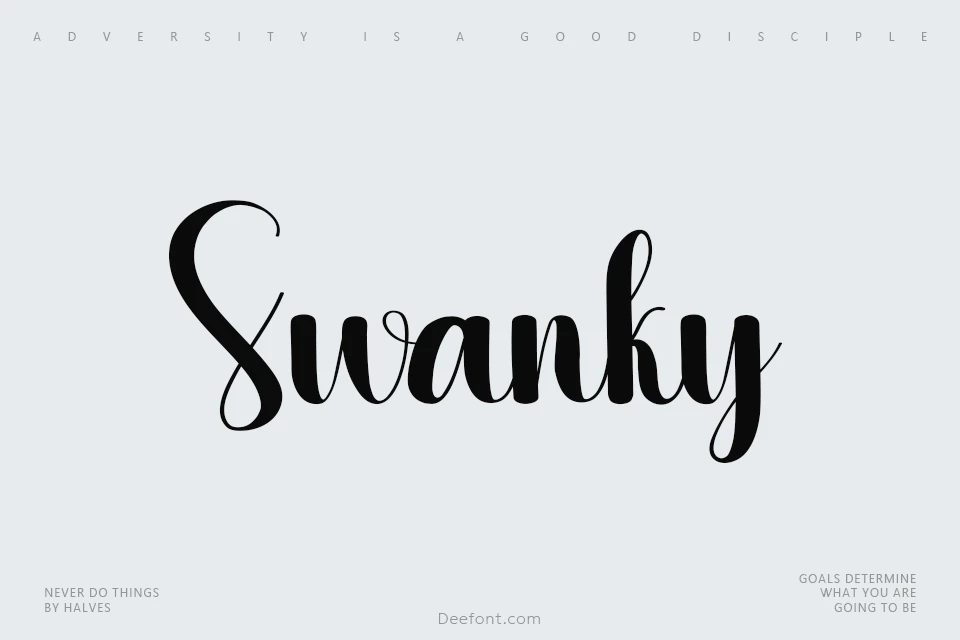
Swanky Font
Swanky Font is a flowing handwritten typeface, described by an elegant touch, perfect for your favorite projects. Fall in love with its incredibly distinct and timeless style and use it to create spectacular designs!